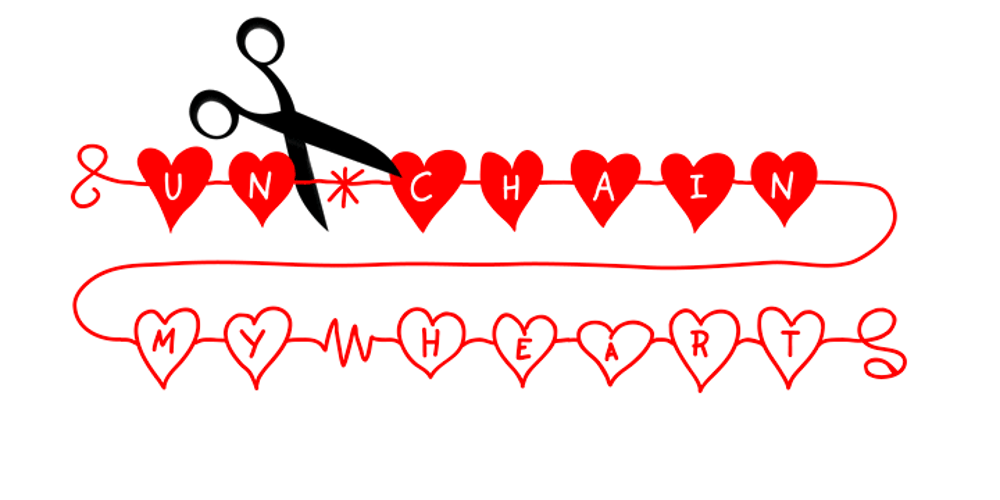
Unchain My Heart Font Family was designed by Harald Geisler and published by Harald Geisler. Unchain My Heart contains 1 styles and family package options. Unchain My Heart is Font that renders hearts on a string with a capital letter in the middle. All hearts are designed to align to a perfect string by remaining the handmade look. Lowercase letters produce a heart with outline. Uppercase letters produce a filled heart. Type in a parenthesis and a loose string end will be rendered either on the right or left side. Look in the full character set to find out more about the special decoration. Ideal for individualized mailings and greeting cards. Unchain My Heart is a part of the Light Hearted Font Collection that is inspired by a recording of Jean Baudrillard with the title, “Die Macht der Verführung” (The Power of Seduction) from 2006. Further inspiration came from the article, “The shape of the heart: I’m all yours”. The heart represents sacred and secular love: a bloodless sacrifice. by British writer Louisa Young printed in EYE magazine (#43) London, 2002.